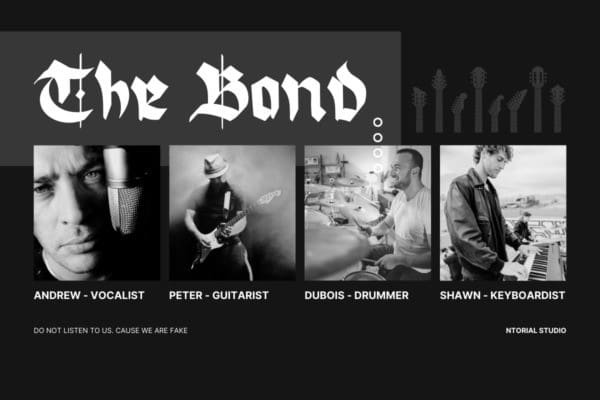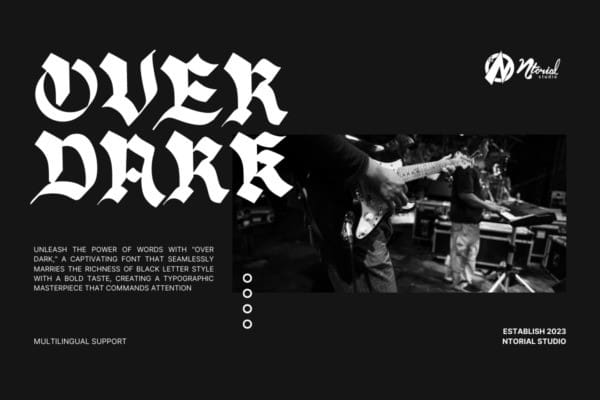
Over Dark Font
Over Dark Font, a captivating font that seamlessly marries the richness of black letter style with a bold taste, creating a typographic masterpiece that commands attention. 🔥 Bold Authority: Immerse your words in the commanding presence of “Over Dark.” Each letter stands tall and proud, exuding confidence and strength. This font is not just a typeface; it’s a statement. ✨
Timeless Elegance: With a nod to tradition and a touch of modern flair, “Over Dark” captures the essence of timeless elegance. Its sophisticated curves and edges strike the perfect balance between classic and contemporary design. 💡 Versatile Impact: Whether you’re crafting a vintage-inspired logo, designing a striking poster, or enhancing your brand identity, “Over Dark” effortlessly adapts to any creative endeavor. Its versatility ensures that your message resonates with lasting impact. 🎨 Limitless Creativity: Unleash your creative genius with a font that invites experimentation.
“OverDark” transcends boundaries, encouraging you to play with contrasts, experiment with layouts, and create designs that leave an indelible mark. 🌟 Unparalleled Legibility: Despite its bold aesthetic, “Over Dark” maintains exceptional legibility, ensuring that your message is not only seen but also understood. The clarity of each character adds a touch of refinement to your visual communication. 🚀 Elevate Your Design: Elevate your designs from ordinary to extraordinary with “OverDark.”
Whether you’re a graphic designer, content creator, or branding enthusiast, this font is your secret weapon for making a lasting impression. Dare to make a statement? Embrace the intensity of “OverDark” and let your words speak with unparalleled vigor and style. Command attention, leave an impression, and redefine the way you communicate visually.